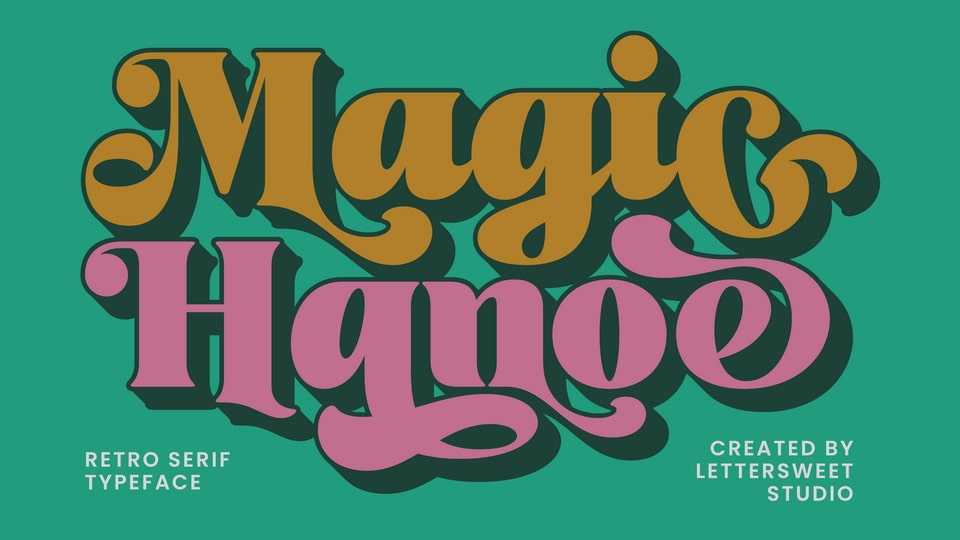
Download Magic Hanoe font, a captivating retro serif typeface full of personality and flair! This typeface features expressive curves, bold strokes, and playful vintage vibes that will make your designs truly stand out.